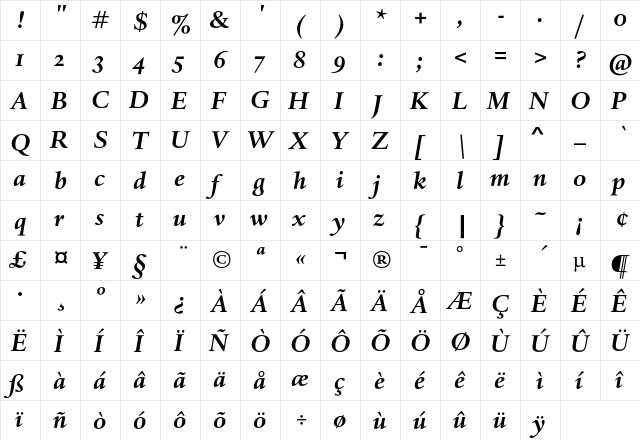
DTLHaarlemmerSD BoldItalic
Design Context for DTLHaarlemmerSD Typeface
DTLHaarlemmerSD is a composed and adaptable typeface that performs quietly and consistently across a wide range of design contexts. The slanted form adds forward momentum and visual energy. The heavy weight commands attention and anchors typographic hierarchies.
Pro Tip: Try DTLHaarlemmerSD for annotation and caption copy alongside an upright companion — the contrast in angle creates a dynamic but ordered typographic system.